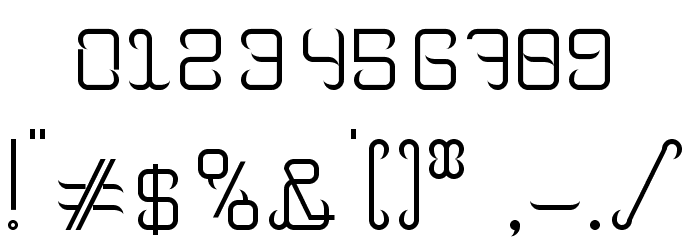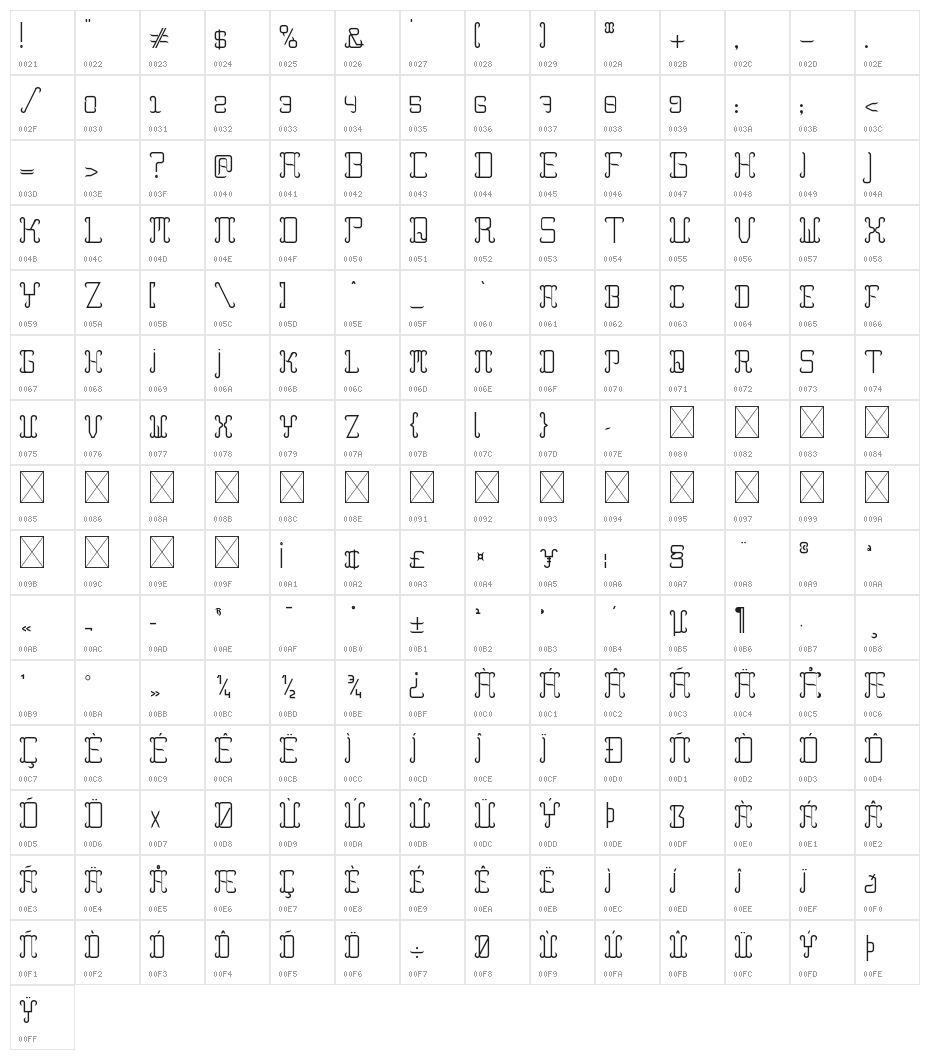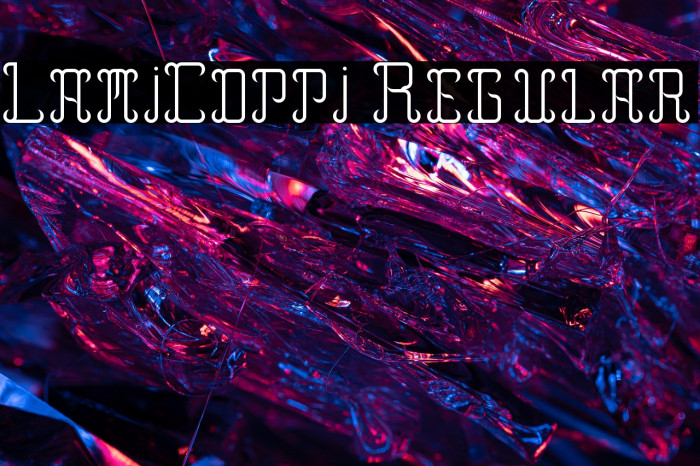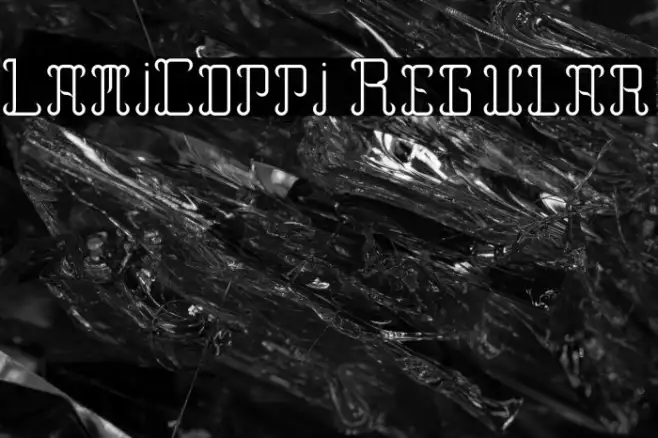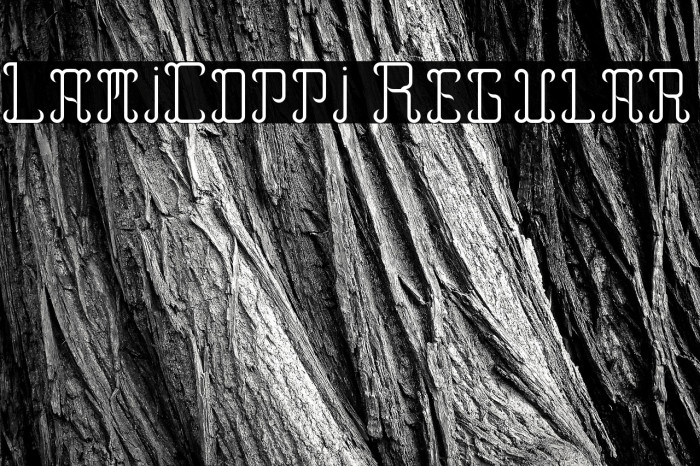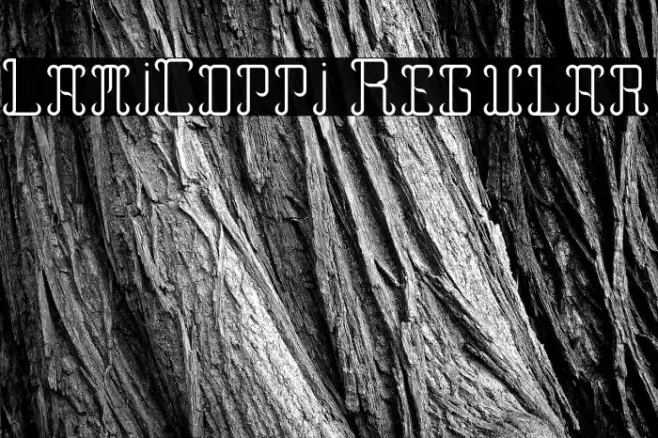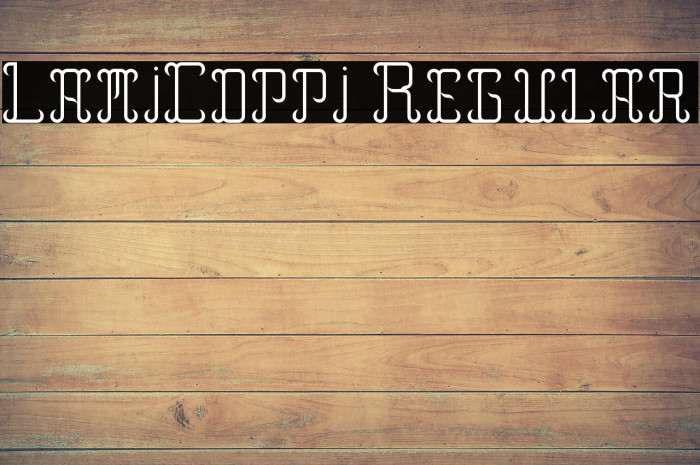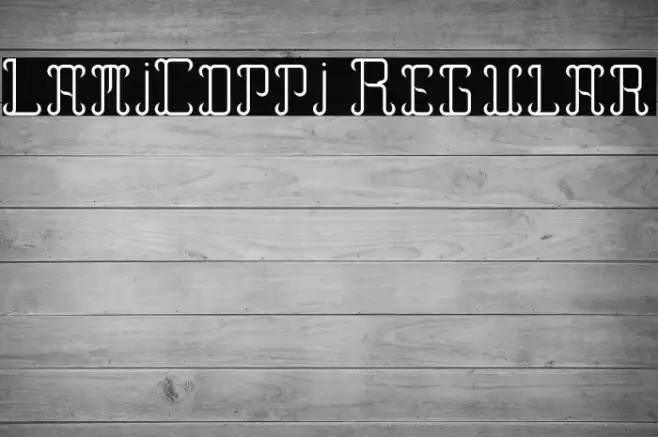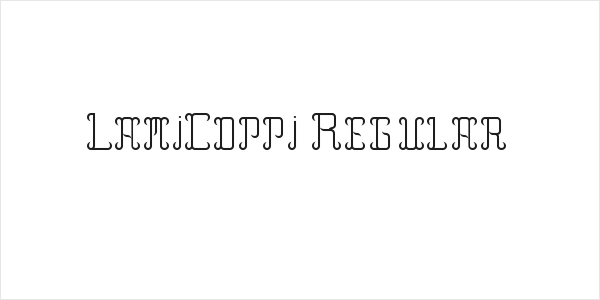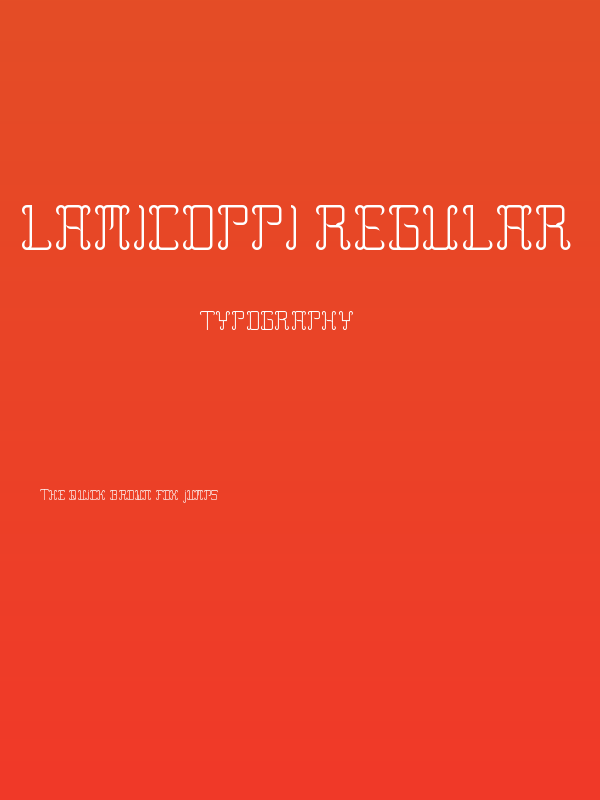
LamiCoppi Regular Font
LamiCoppi Regular Description
This font features a unique and decorative style with a modern twist. The characters are constructed with a combination of straight lines and rounded curves, giving them a playful yet structured appearance. The uppercase and lowercase letters maintain a consistent height, creating a uniform look across the alphabet. The numbers and special characters follow the same design principles, ensuring a cohesive visual experience. The font's distinct loops and curves add an element of elegance and creativity, making it stand out in any design project.
| Use Case | Logos, Posters, Creative projects |
| Proposed Projects | Ideal for branding, posters, and creative projects that require a distinctive and artistic touch. |